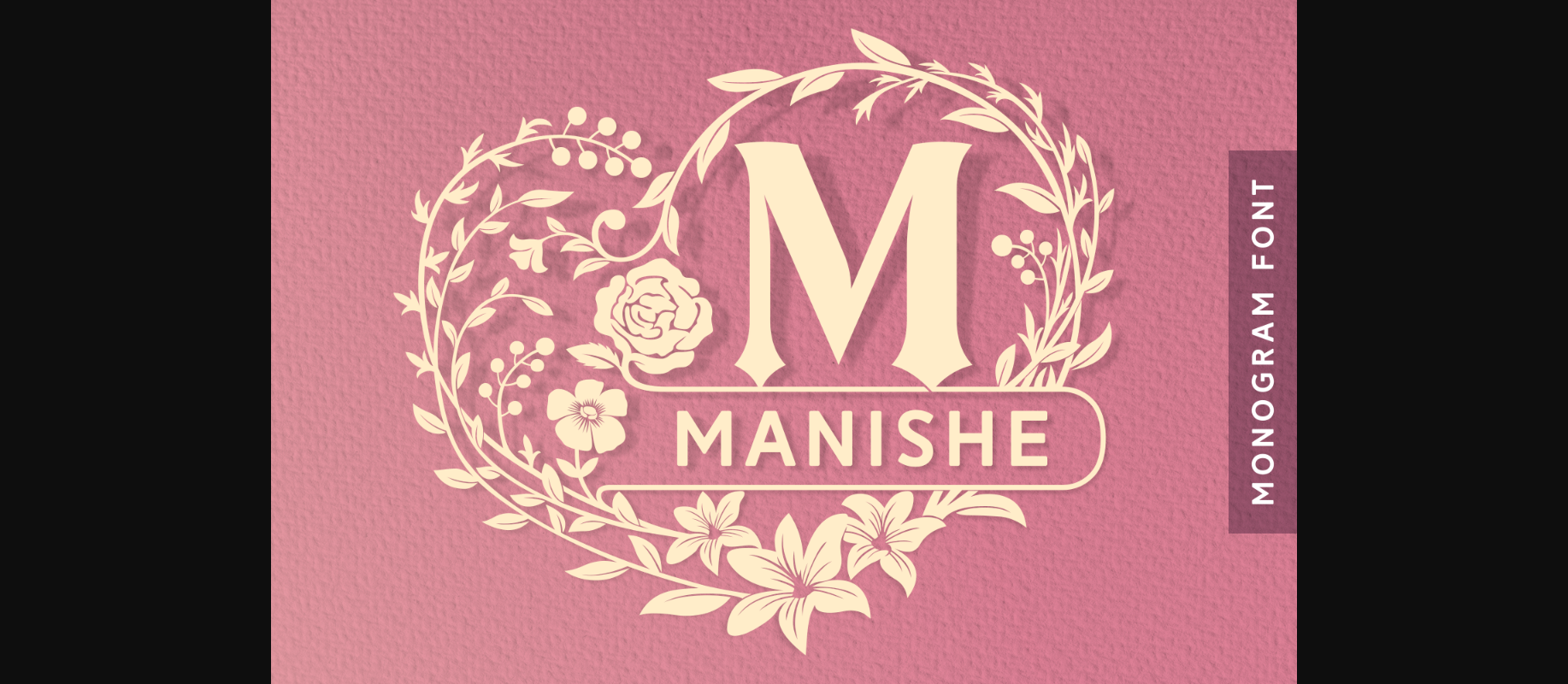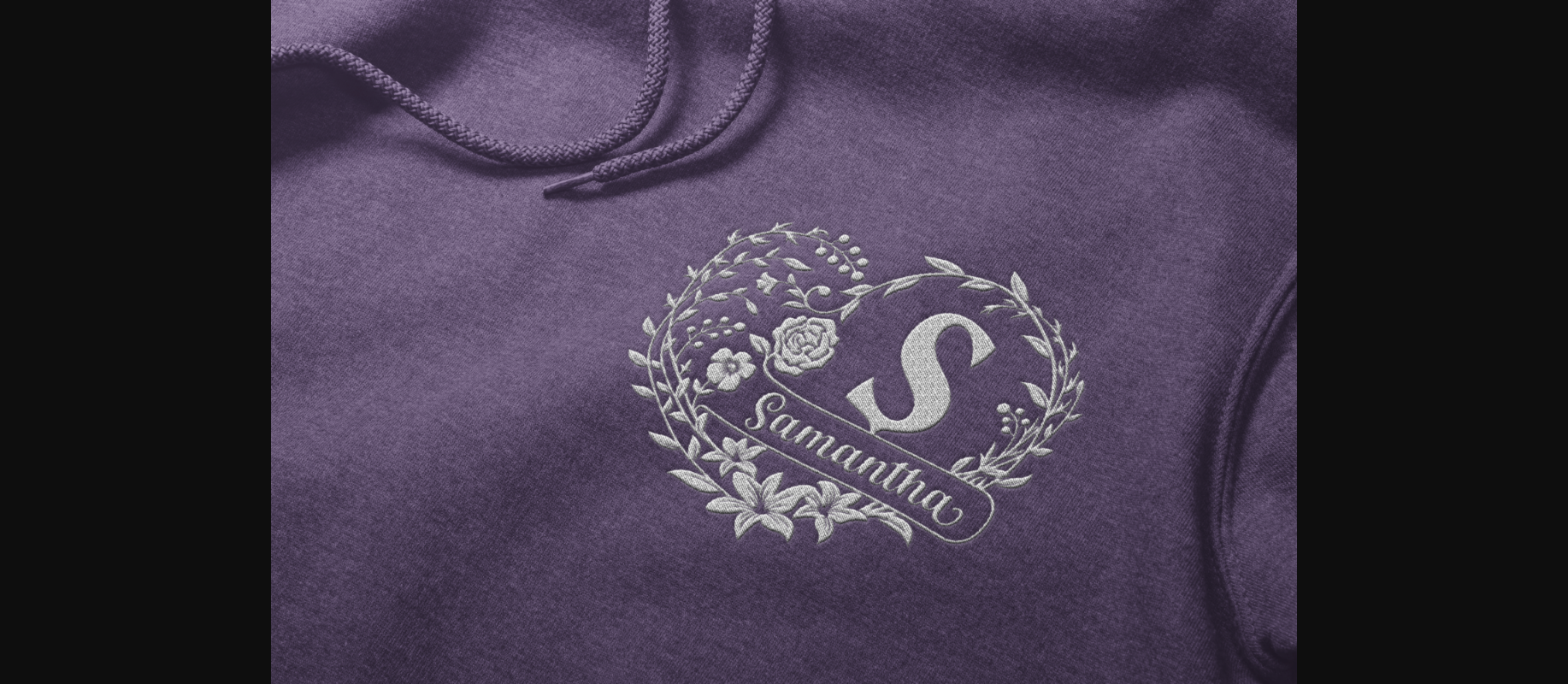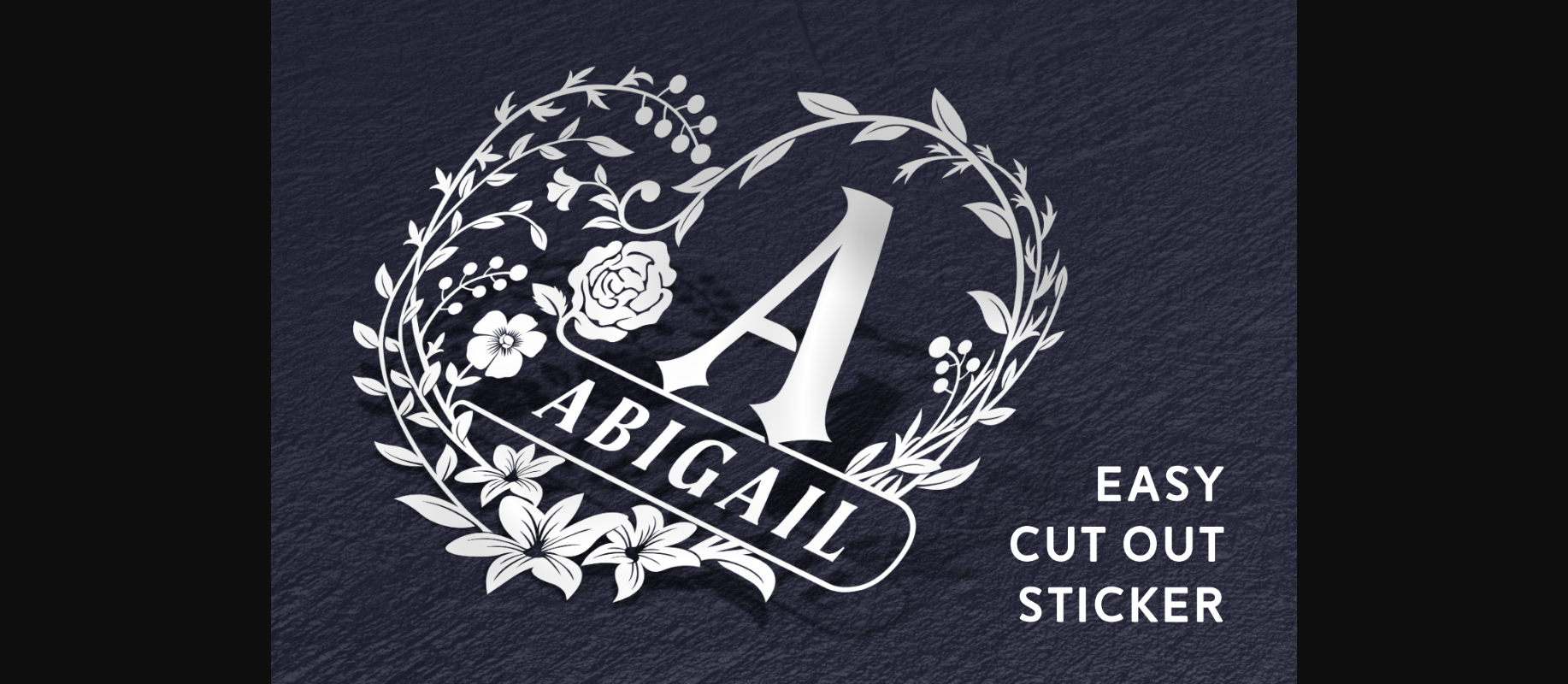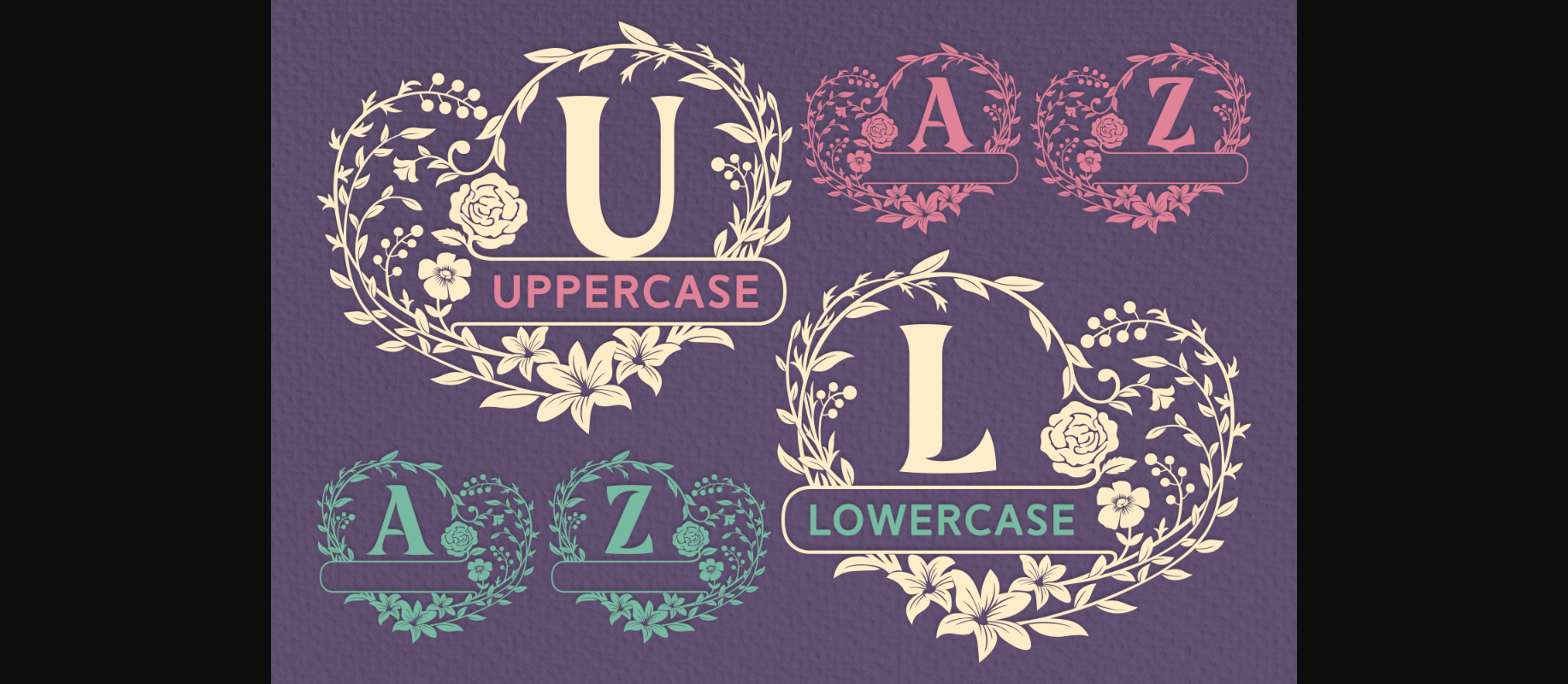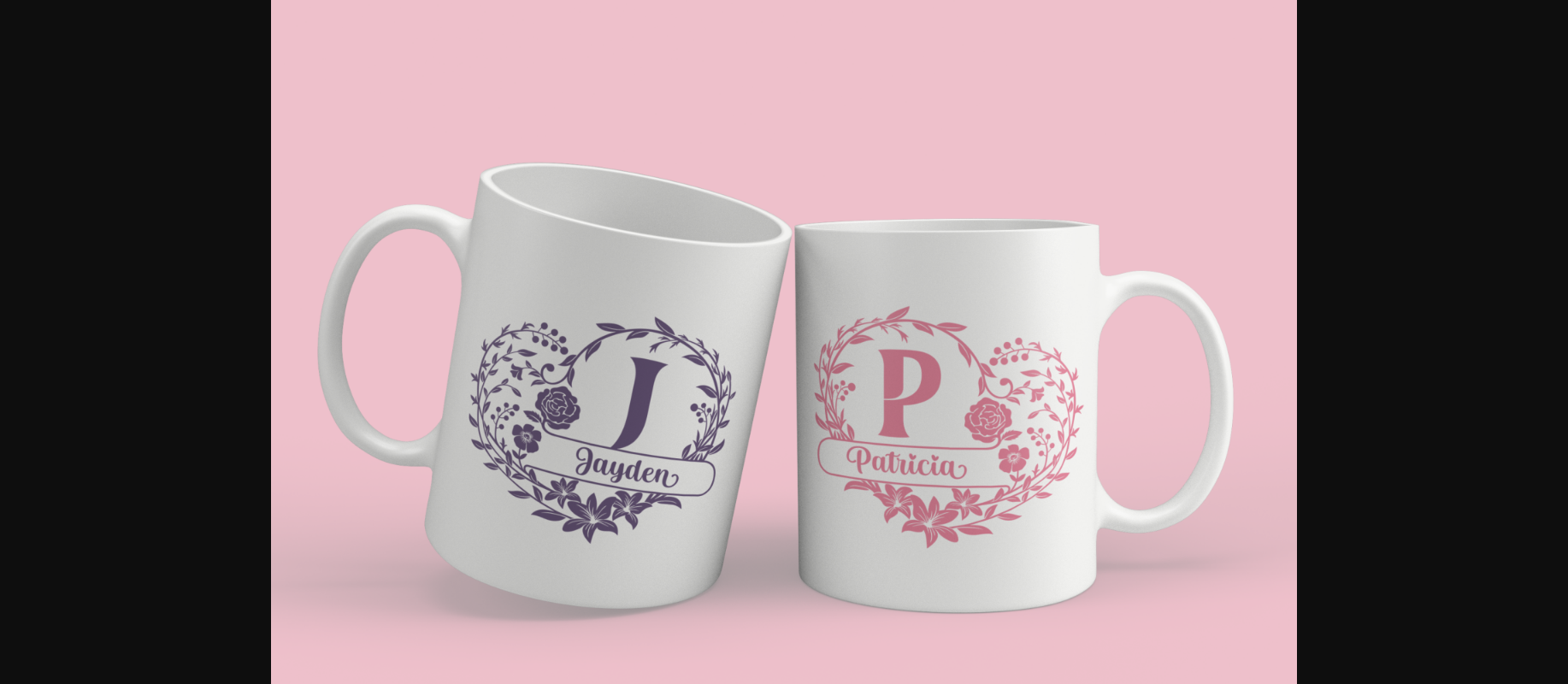
HomeDecorative FontsManishe Font Decorative Fonts Manishe Font FacebookXPinterestWhatsApp 1 of 7 ... Manishe Font Poster 2... Manishe Font Poster 3... Manishe Font Poster 4... Manishe Font Poster 5... Manishe Font Poster 6... Manishe Font Poster 7... About Manishe Font Manishe is a delicate and very detailed designed decorative font. Fall for its ravishing style and use it to create gorgeous wedding invitations, beautiful stationary art, eye-catching social media posts, and much more! DOWNLOAD NOW People also explored Bullshit Font Captain Brown Font Fish Face Font Messy Nessy Duo Font Katrina Font Mellancolist Font Qatielia Family Font Kaiden Font Olaugh Family Font 426 0 TagsManisheManishe Font Previous articleLongine Font FontNext articleBirder Font LEAVE A REPLY Cancel reply Comment: Please enter your comment! Name:* Please enter your name here Email:* You have entered an incorrect email address! Please enter your email address here Website: Save my name, email, and website in this browser for the next time I comment. Personal Use Free Child Writing Free Personal Use Free Read more about this font Machine House Personal Use Free Read more about this font Pelmeshka Personal Use Free Read more about this font Heart Memory Personal Use Free Read more about this font BLOG How to Install and Use Fonts on Windows, macOS, and Web Projects How to Install and Use Fonts on Windows, macOS, and Web Projects Fonts are a crucial part of design and branding. Whether you’re designing a... Modern Sans-Serif Fonts That Brands Love in 2025 Where to Buy American Fonts Online in 2024 Top 7 Google Fonts Alternatives for Faster and Privacy-Friendly Web Design (2025)